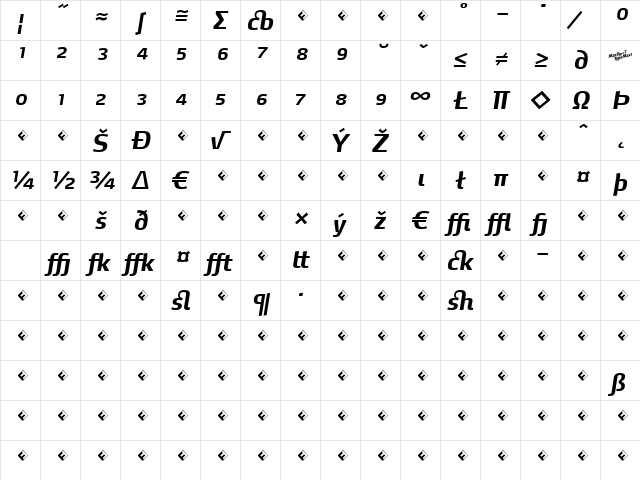
MaxDemiSerif-BoldItalicExp Regular Font Preview
| Foundry | FontShop International |
| Designer | Morten Rostgaard Olsen |
Design Context for MaxDemiSerif-BoldItalicExp Typeface
MaxDemiSerif-BoldItalicExp brings classic typographic sensibility to the table — its serifs and measured letterforms reflect centuries of print heritage. The dynamic lean of this cut emphasises speed and emphasis in any layout. Its bold stroke weight gives it real presence on the page.